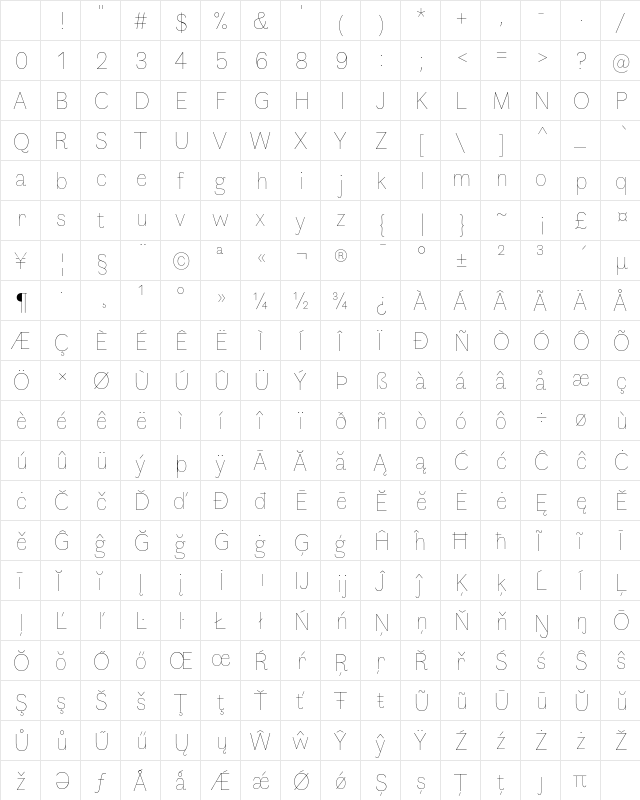
Complete Faune Thin Regular glyph index. Displaying only characters natively supported by Faune Thin Regular font.
Faune Thin is a composed and adaptable typeface that performs quietly and consistently across a wide range of design contexts. Its slender proportions lend an understated elegance to any composition.